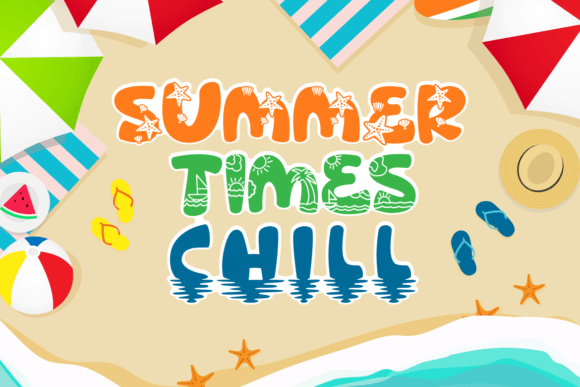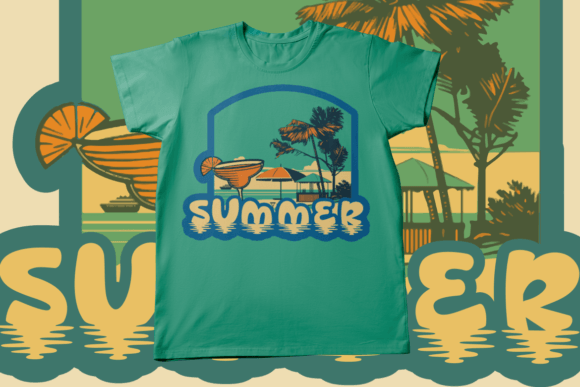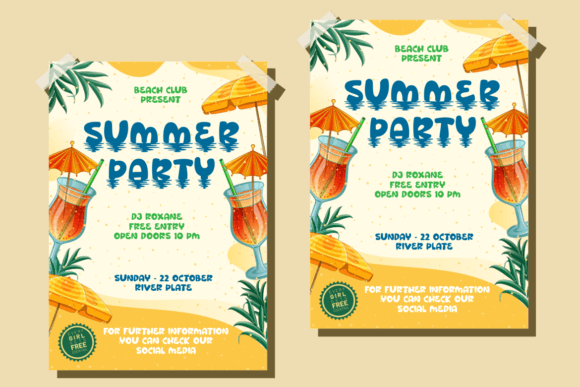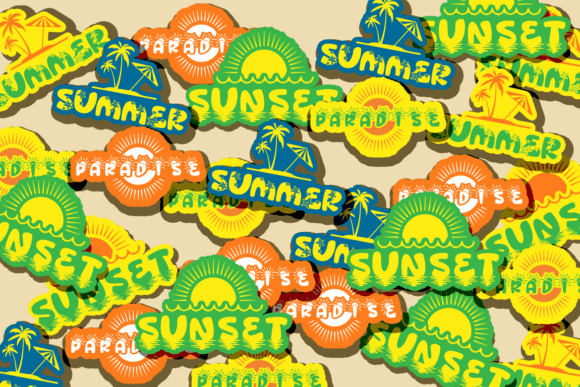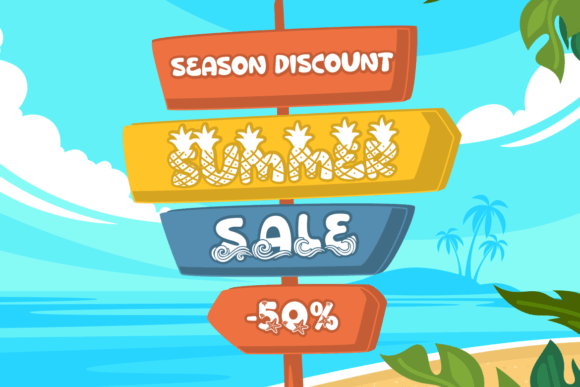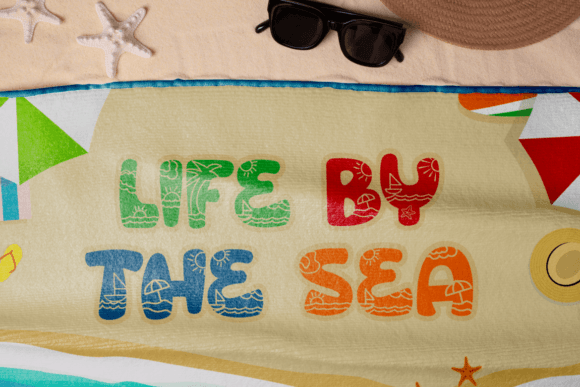
Introduction to Sandy Toes Font
Sandy Toes – Quirky Summer Theme Font is a delightful typeface that transports you to the sunny shores of summer.
This font features playful, rounded, and bold letterforms that capture the essence of fun and the warmth of the season It’s versatile and can be used on its own or combined with any of its eight vibrant variations.
Key Features of Sandy Toes Font
Why Choose Sandy Toes Font?
Sandy Toes Font offers exceptional quality and versatility, making it a valuable addition to your design toolkit. Whether you’re creating for personal projects or commercial use, Sandy Toes Font delivers professional results.